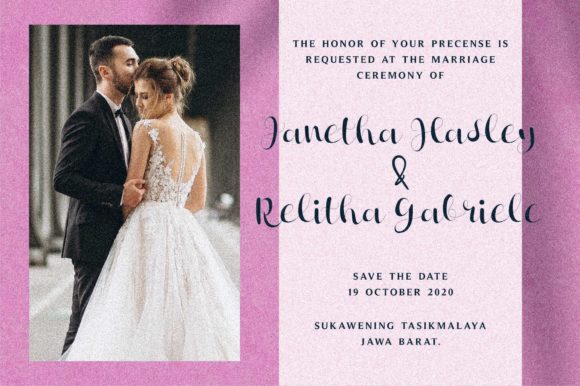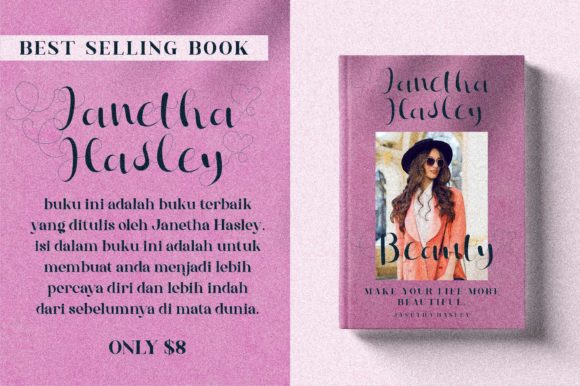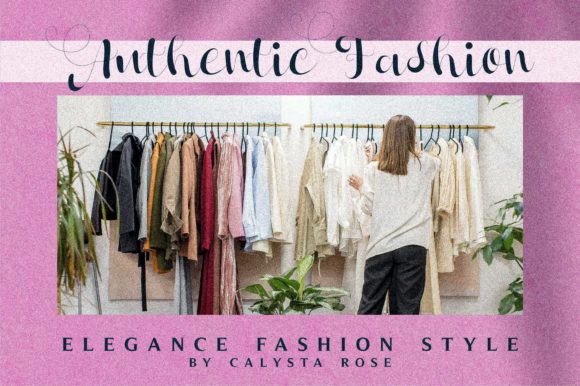
Introduction to Janetha Hasley Font
Imagine you’re sipping a warm cup of coffee on a lazy Sunday morning, flipping through a beautifully designed wedding invitation that caught your eye. The elegant script, the delicate flourishes, and the way the text seems to dance along the baseline – it’s a moment that sparks creativity and inspires your next design project. The Janetha Hasley Font is one of those magical tools that can elevate your designs from ordinary to extraordinary.
As a designer, you’re constantly on the lookout for high-quality design resources that can help bring your creative vision to life. The Janetha Hasley Font is a valuable addition to your design arsenal, offering a range of applications from logos and wedding invitations to headings, t-shirts, and signage. With its PUA encoded glyphs and swashes, you can access all the characters you need to create stunning designs with ease.
Key Features of Janetha Hasley Font
- High-quality design resource ideal for creative projects, offering a unique and stylish look.
- Features a clean and elegant design, making it suitable for a wide range of creative projects.
Honest Review: Janetha Hasley Font
I recently had the chance to try out the Janetha Hasley Font and I must say it’s a beautiful addition to any creative project. The font is a high-quality, elegant script that can add a touch of sophistication to your designs.
What works well with the Janetha Hasley Font is its versatility. It’s perfect for both digital and print projects, and it can be used in a variety of contexts, from logos and branding to invitations and typography-based art.
- ✨ High-quality font with smooth lines and elegant curves
- ✨ Suitable for digital and print projects
However, I did notice a few limitations with the Janetha Hasley Font. For one, it doesn’t come with a transparent background, which can make it difficult to use on images or videos with complex backgrounds.
- ⚠️ No transparent background option
- ⚠️ May not be suitable for use on complex images or videos
Overall, I’m impressed with the Janetha Hasley Font and I would definitely recommend it to designers looking for a high-quality script font. While it may have a few limitations, its beauty and versatility make it a valuable addition to any design resource collection.
Tips and Best Practices
To get the most out of the Janetha Hasley Font, experiment with different font sizes, colors, and combinations to create unique and visually appealing designs. This font is ideal for designs with a transparent background, allowing your text to stand out without distractions.
The Janetha Hasley Font is perfect for various creative projects, including branding, marketing materials, social media graphics, and digital invitations. Its versatility and high-quality design make it a valuable design resource for any project.